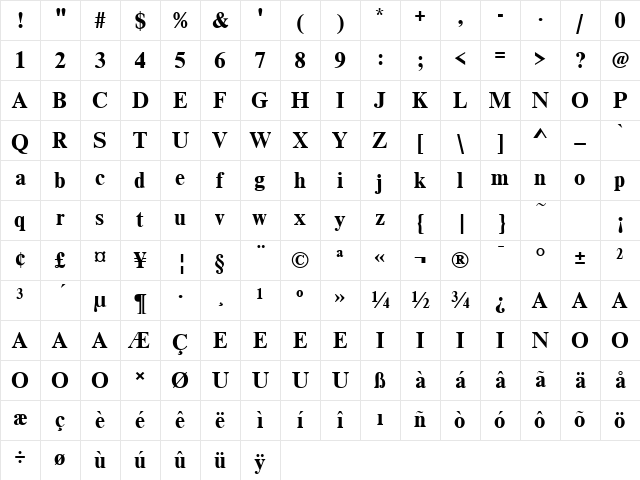
TurkishTimesSSK Bold
Design Context for TurkishTimesSSK
TurkishTimesSSK is a composed and adaptable typeface that performs quietly and consistently across a wide range of design contexts. Its bold stroke weight gives it real presence on the page.